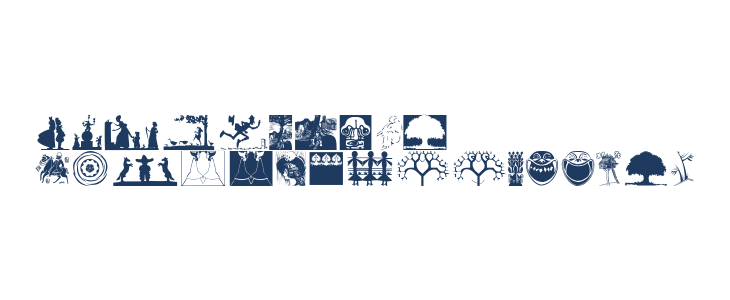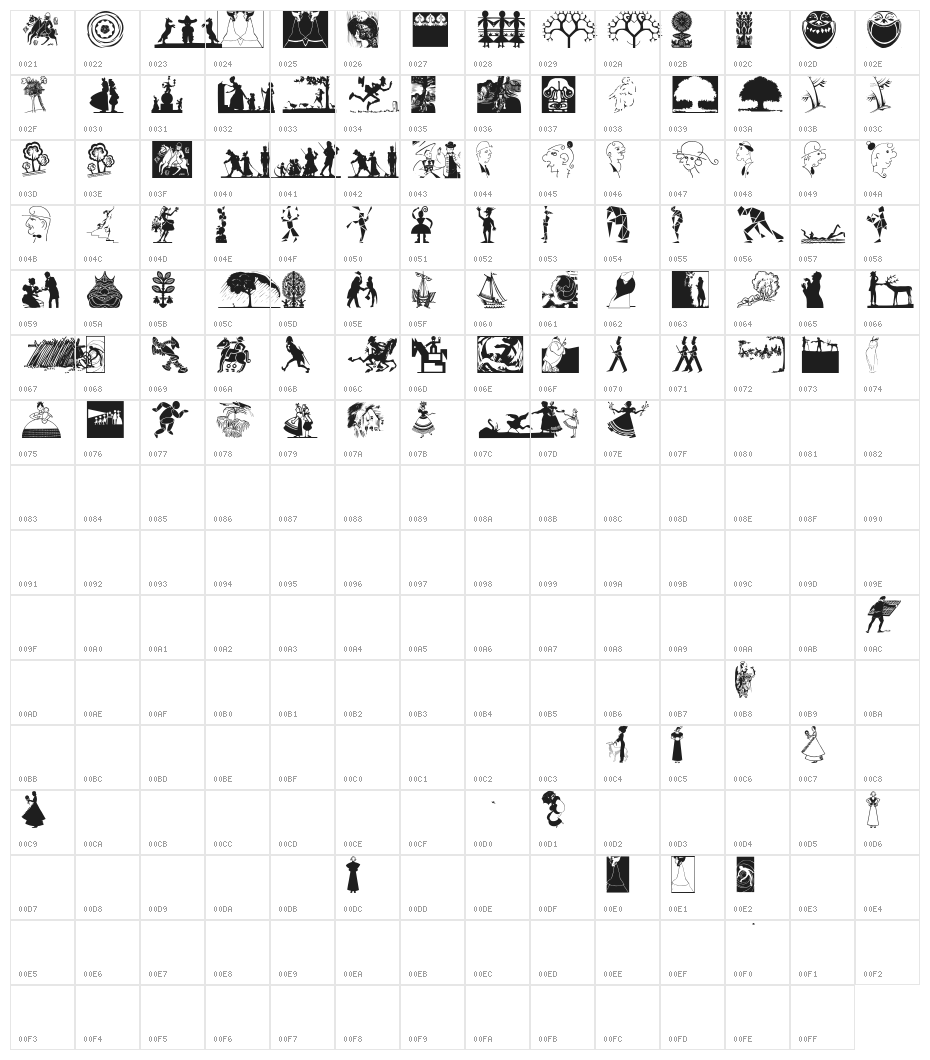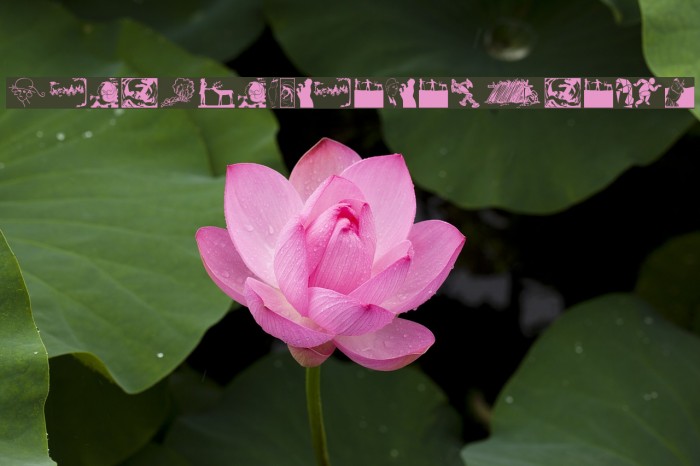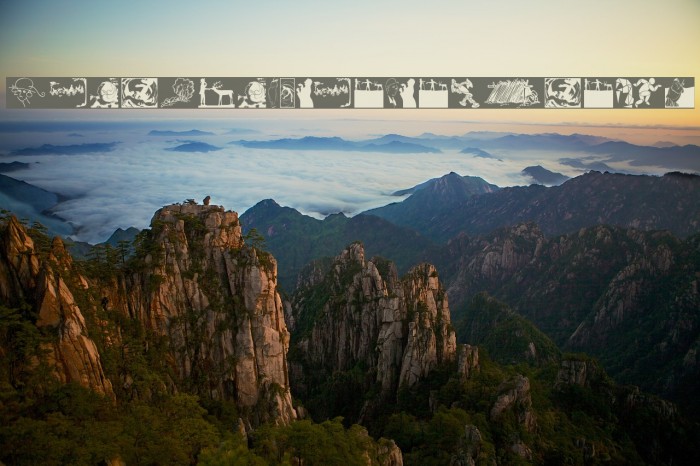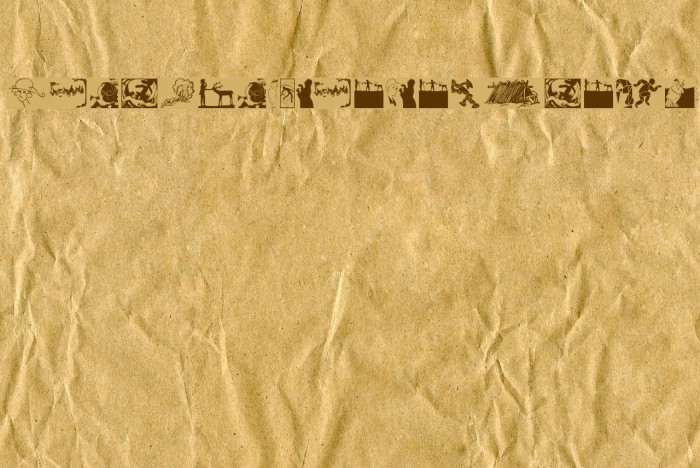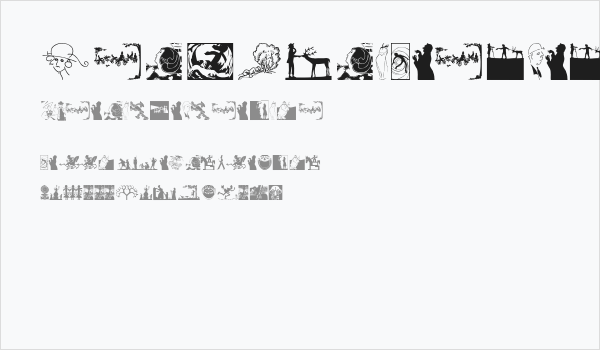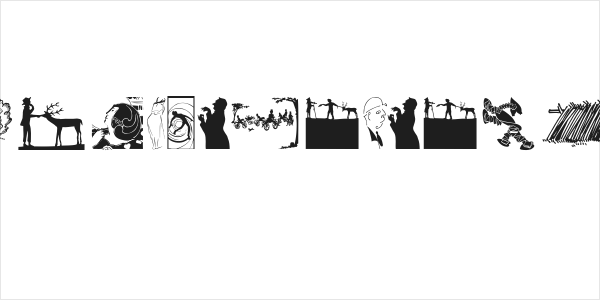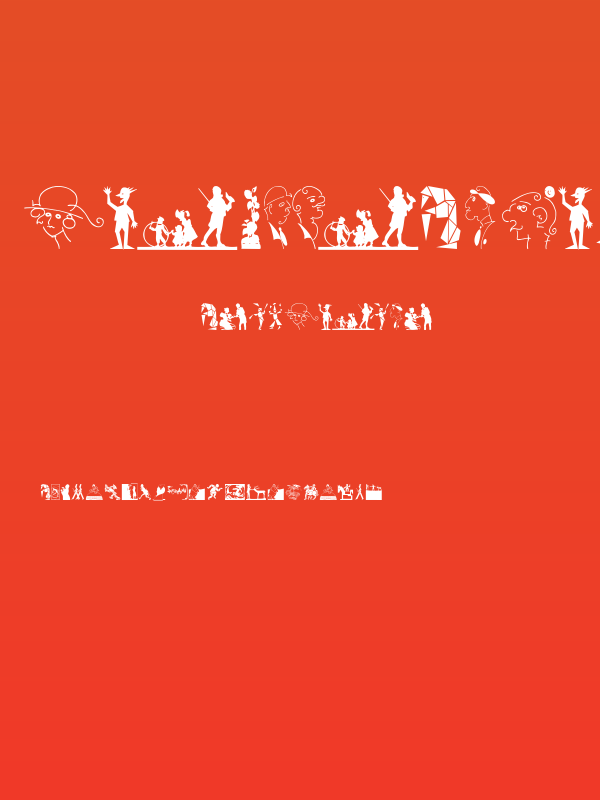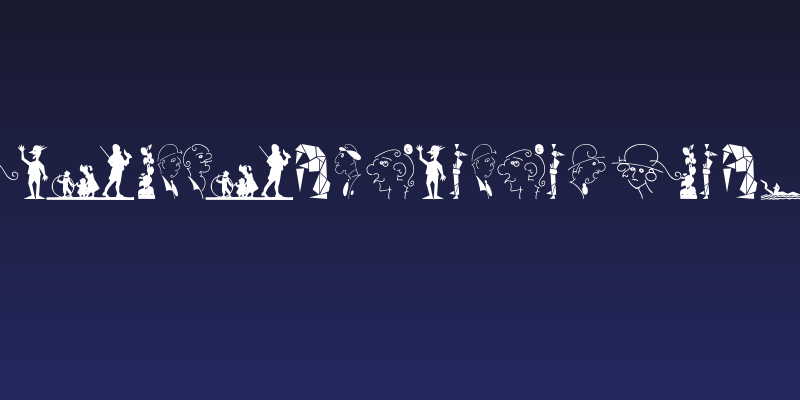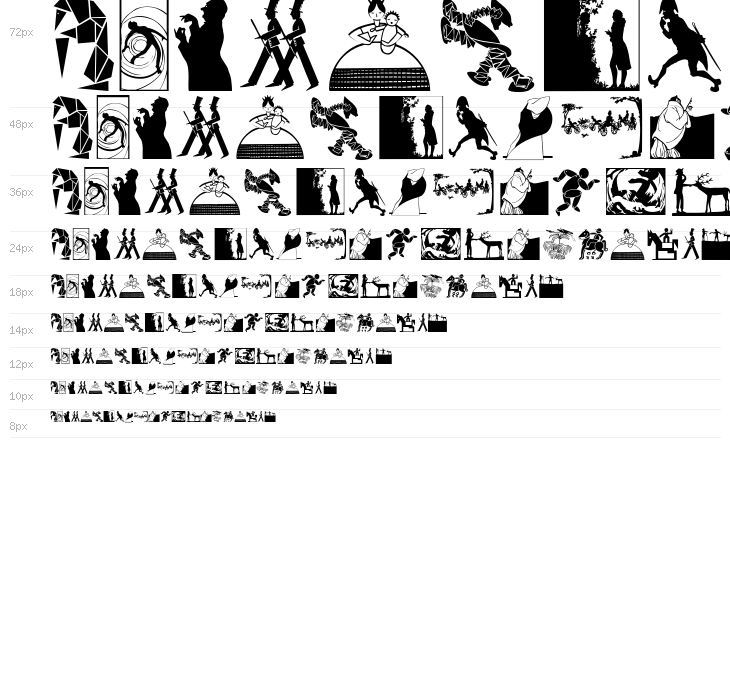
GrandfathersDesignsTwo Font
GrandfathersDesignsTwo Description
A highly decorative and illustrative font composed of detailed silhouette-style images depicting people, animals, and scenes, each character represented by a unique pictorial design rather than traditional letterforms.
| Overall Style | Decorative, Whimsical, Storybook |
| Use Case | Logos, Headlines, Posters, Themed Graphics |
| Proposed Projects | ChildrenΓ’β¬β’s books, storybook titles, themed event invitations, educational materials, creative posters, and decorative headlines. |